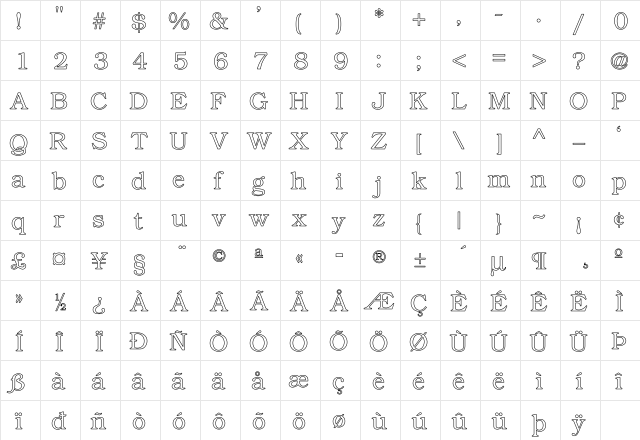
Oakland Ho Regular
Design Context for Oakland Ho Typeface
Oakland Ho is a composed and adaptable typeface that performs quietly and consistently across a wide range of design contexts.